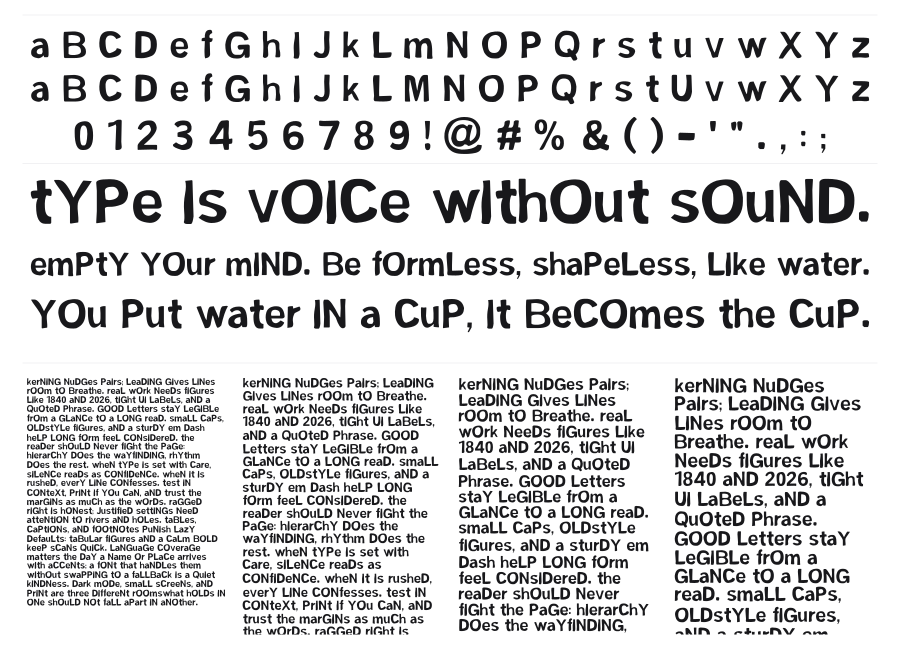
FSM Sans
FSM Sans is a bold humanist sans designed for the 2005 World Social Forum logo in Portuguese. Its slightly irregular stroke weights and organic construction give it a handcrafted warmth that sets it apart from polished commercial grotesques. The result is confident but approachable, with the kind of energy that suits social movements, community campaigns, and activist design.